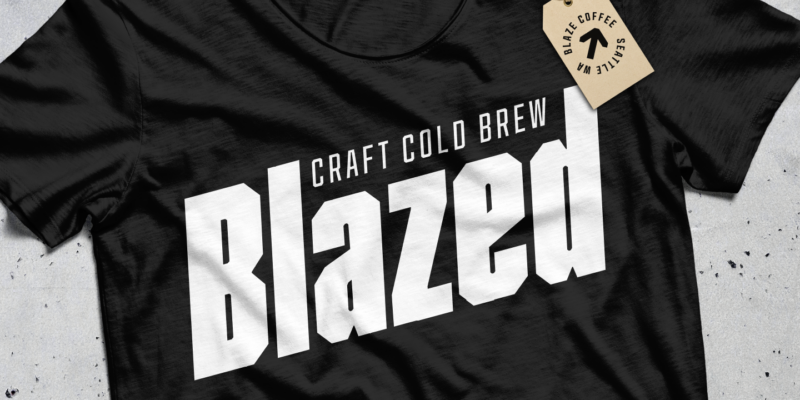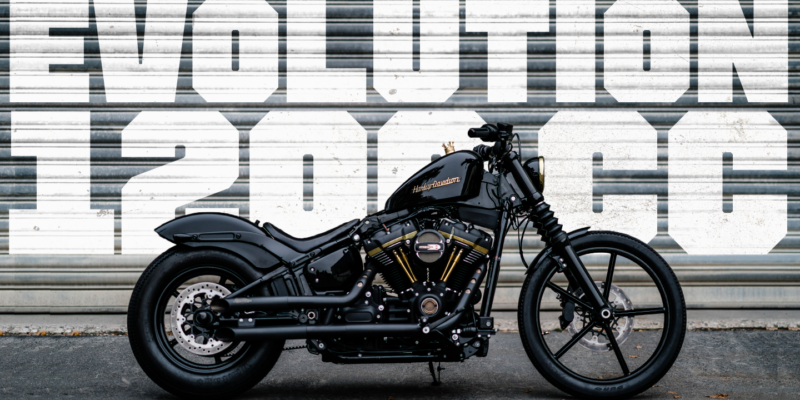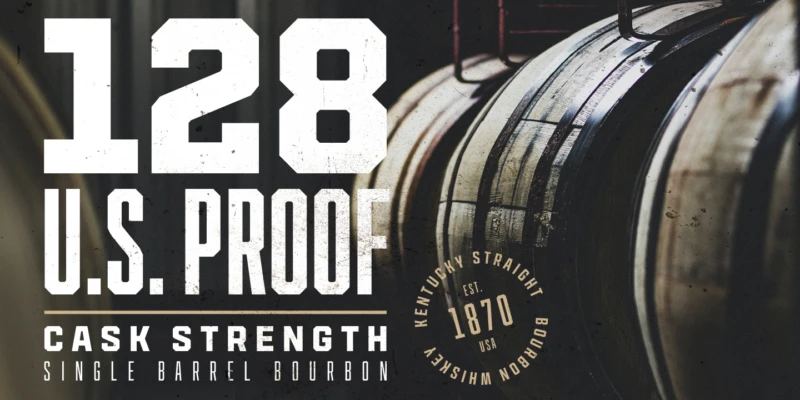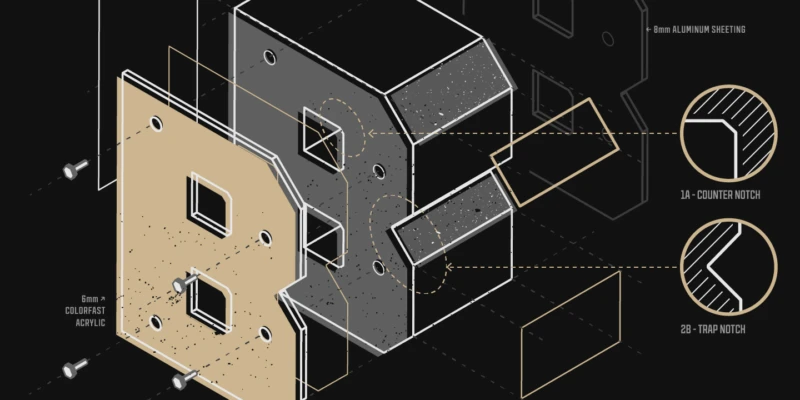
Cutmark Font Family
INDUSTRIAL-STRENGTH UTILITY. Designed for function. Cutmark fonts features common 45˚ chamfered corners, flattened ink traps and wide apex forms. Customize the look with alternates including an Angled Set, Straight Set, Beam I, single-story a, and hooked l. The OpenType version includes 10 weights in 3 widths with matching italics.
Cutmark font by J Foundry — the numbers 128 and the words “U.S. PROOF”, “CASK STRENGTH”, and “SINGLE BARREL BOURBON” in a distressed sans serif, with a circular badge reading “KENTUCKY STRAIGHT WHISKEY BOURBON EST. 1870 USA” over a background of wooden barrels
Cutmark font by J Foundry — the word “Blazed” in large, bold, italic sans-serif letters with “CRAFT COLD BREW” above it, and a tag with “BLAZE COFFEE SEATTLE WA” and an upward arrow icon
Cutmark font by J Foundry — a black motorcycle in front of a garage door with the words “EVOLUTION 1200CC” in a wide, sans-serif, stencil-like font.
Cutmark font by J Foundry — an exploded isometric diagram of the letter B constructed from two layers of material, with details of “COUNTER NOTCH” and “TRAP NOTCH” shown in circular insets
Variable version
Flat ink traps & wide apex forms
Common 45˚ chamfer corners
Angled alternates
Straight alternates
Lowercase alternates
Alt &, y, a, l